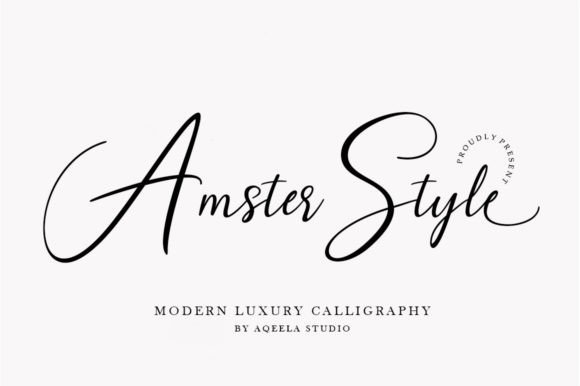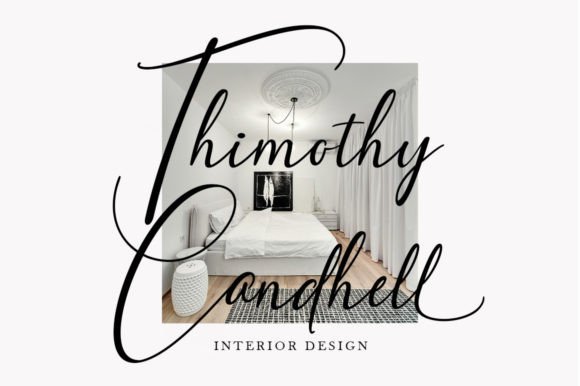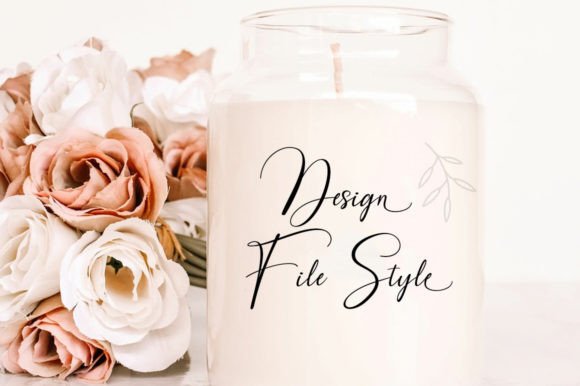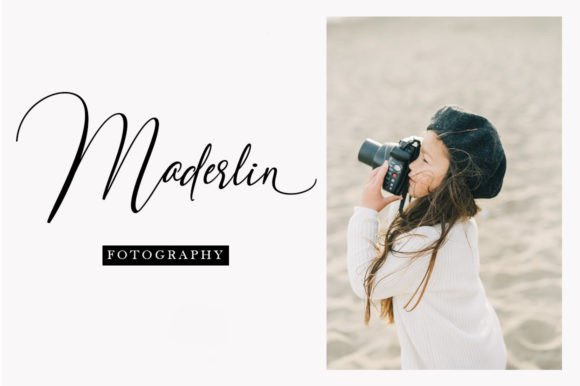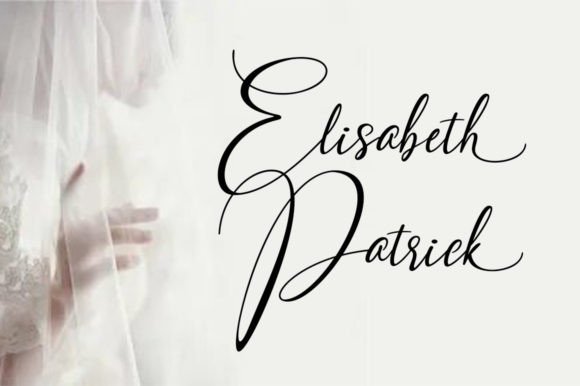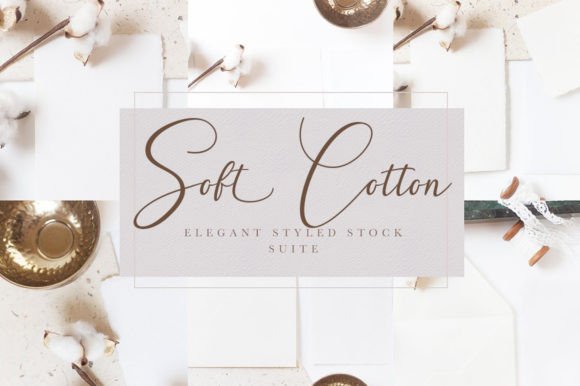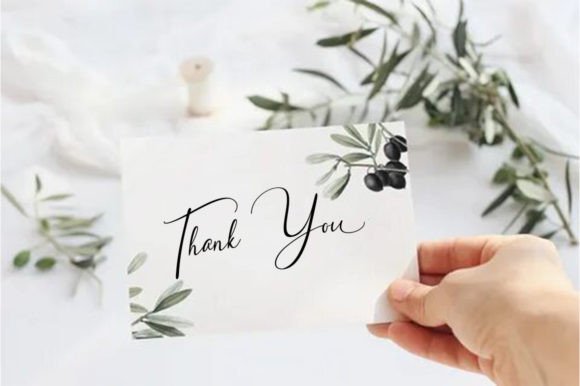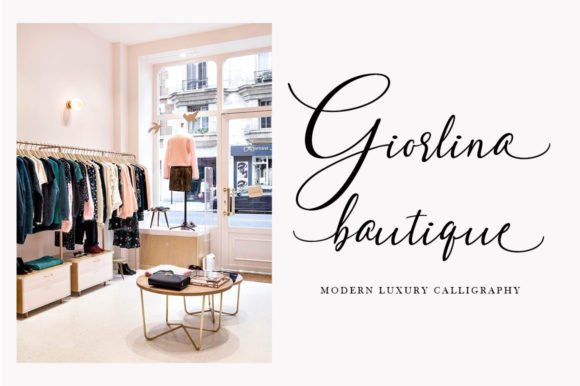
Amster Style Font
About Amster Style Font
**Amster Style: Casual Handwritten Elegance**
Introducing “Amster Style,” a natural handwritten font that exudes casual elegance. This font is the perfect choice for a wide range of applications, from logos and invitations to social media posts and product packaging. Its versatile and casual style adds a touch of authenticity to your designs, making it suitable for various creative projects.
**Natural Handwritten Elegance:**
Amster Style captures the essence of natural handwritten elegance. The fluid strokes and authentic feel of the font contribute to a casual yet refined aesthetic.
**Perfect for Diverse Applications:**
This font is incredibly versatile, making it suitable for a multitude of applications. Whether you’re working on logos, invitations, stationery, social media posts, advertisements, or product packaging, Amster Style seamlessly integrates into your creative projects.
**Elevate Wedding Designs:**
Enhance your wedding designs with the casual elegance of Amster Style. The handwritten charm adds a personal touch to invitations, stationery, and other wedding materials.
**Ideal for Branding:**
Amster Style is a fantastic choice for branding. Create a unique and authentic brand identity with this font, adding a touch of casual sophistication to your logos and product designs.
**Captivating Labels and Watermarks:**
Craft captivating labels, watermarks, and product packaging with Amster Style. The font’s natural handwritten quality adds character and charm to your labels, making your products stand out.
**Versatile Photography Watermarks:**
For photographers, Amster Style serves as a versatile choice for watermarks. Infuse your photos with a signature look that reflects a casual and genuine style.
**Special Events and Invitations:**
Whether it’s a special event or casual gathering, Amster Style is an excellent choice for invitations. Its friendly and approachable vibe sets the tone for a relaxed and enjoyable experience.
**Effortless Social Media Posts:**
Create eye-catching social media posts effortlessly with Amster Style. The font’s casual elegance adds a touch of authenticity to your posts, making them more engaging for your audience.
**Casual Yet Refined Aesthetic:**
The casual yet refined aesthetic of Amster Style strikes the perfect balance. It brings an approachable and friendly feel to your designs while maintaining an air of sophistication.
Amster Style is more than just a font; it’s a design companion that effortlessly enhances the natural, handwritten elegance of your creative projects. Whether you’re working on branding, invitations, or social media content, let Amster Style be the element that adds a touch of casual refinement to your designs.